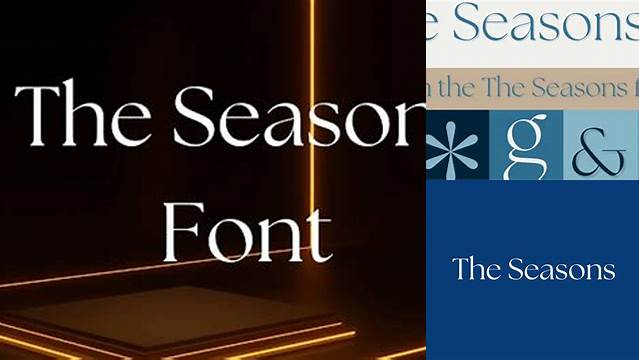
Hey there, font enthusiasts! Ever find yourself hunting for the perfect typeface to capture the essence of the seasons? Well, you're in luck! This guide will dive deep into the world of the Seasons font and how you can get your hands on it for free. We'll explore where to download it, how to install it, and even some creative ways to use it in your projects. Let's get started, shall we?
What is Seasons Font?
First things first, what exactly is the Seasons font? Generally, it's a group of fonts that often try to encapsulate the feelings and vibe of each season: Spring, Summer, Autumn (Fall), and Winter. Think of it as a visual representation of nature's yearly cycle, where fonts can evoke warmth, coolness, growth, and decay. The Seasons font is often chosen for its versatility and ability to add a touch of seasonal flair to anything from greeting cards and social media posts to website headers and promotional materials. It's like giving your design a little hug of the season! These fonts are not only about aesthetics but are also a means of communication. Choosing the right font can instantly set the mood and tone of your project. For instance, a font with delicate serifs might evoke the gentle breeze of spring, while a bold, blocky font might convey the strength and coldness of winter. Many of these fonts are designed to be playful and engaging, making them perfect for projects that are meant to capture attention. When choosing a font, the focus should not only be on aesthetics but also on the readability. The best seasonal fonts are those that are both beautiful and functional. This will enable the audience to clearly grasp the seasonal theme and enhance its overall appeal. The best seasonal fonts can adapt to multiple design needs, enhancing the emotional impact of your message and ensuring it connects with the audience. To keep your designs fresh and relevant, constantly explore and experiment with different fonts to keep your designs unique.
When you're browsing these sites, use keywords like "seasonal," "spring," "summer," "autumn," or "winter" to narrow your search. Also, pay attention to the font's style, as some fonts are only for display purposes and not for body text.
- Install the Font: Right-click on the font file (.ttf or .otf) and select "Install." Windows will automatically install the font, and it will be available in your applications.
- Check in Your Programs: Open your design software (like Photoshop, Word, or any other program that uses fonts) and check if the new font appears in the font selection menu.
macOS
- Open Font Book: Open the Font Book application, which is pre-installed on your Mac.
- Add the Font: Drag and drop the font files (.ttf or .otf) into the Font Book window. Alternatively, you can click the "+" button at the top and select the font files.
- Organize Your Fonts: Font Book lets you organize fonts into collections, which is great for keeping track of your seasonal fonts.
- Restart Programs: If the font doesn't immediately appear in your applications, try restarting them.
Unleash Your Creativity: Using Seasons Fonts in Your Projects
Now comes the fun part! Once you have your Seasons fonts installed, the possibilities are endless. Here are some ideas to get your creative juices flowing:
Social Media Graphics
Social media is a visual platform; use fonts that enhance your brand. Create eye-catching graphics for your social media posts. Design holiday-themed announcements, seasonal greetings, or promotional content that perfectly captures the vibe of the moment. Choose fonts that complement your brand's aesthetic and match the spirit of the season. Whether it's a playful spring-themed font for a promotional campaign or a cozy winter font for an announcement, carefully select a font that strengthens your message and resonates with your target audience.
Website Design
Give your website a seasonal makeover. Change your website's headers, subheadings, or even body text to reflect the current season. Consider using a playful font for spring, a bold font for summer, a warm font for autumn, or a crisp font for winter. Make sure the font you select is consistent with your website's overall theme and is easy to read. The font you choose should complement your website’s design.
Greeting Cards and Invitations
Design personalized greeting cards and invitations for special occasions or holidays. Whether you're creating a festive holiday card or a summer barbecue invitation, the right font can set the tone. Choose fonts that are consistent with the occasion and the message you wish to share. A handwritten-style font can give your invitations a more personal touch. A whimsical font can add a playful touch.
Print Materials
Incorporate seasonal fonts in your brochures, flyers, posters, and other print materials. Choose fonts that enhance the overall design and support your message. Whether it's a poster to advertise a fall festival or a spring sales flyer, the right font can catch attention. Consider font readability and legibility, which are essential for conveying your message clearly. Test multiple font combinations to identify the best fit for your project.
Digital Art and Illustrations
Use seasonal fonts to add text elements to your digital art and illustrations. Experiment with different font styles to achieve various effects. Integrate the font into your artwork to enhance its overall design and create a cohesive theme. Combining the font with complementary graphic elements can produce visually attractive compositions that capture the essence of the season.
Tips for Effective Font Usage
- Pair Fonts Carefully: Don't be afraid to combine fonts, but make sure they complement each other. Don't mix a playful font with a formal font, as it can result in an odd visual appearance.
- Consider Readability: Always prioritize readability. Make sure your font is easy to read, especially for body text.
- Use Font Styles Strategically: Use different font styles (bold, italics, etc.) to emphasize important information.
- Maintain Consistency: Be consistent with your font usage throughout your project.
- Consider Your Audience: Choose fonts that appeal to your target audience. If you are creating content for children, choose playful and fun fonts. If you are creating content for a professional audience, choose professional fonts.